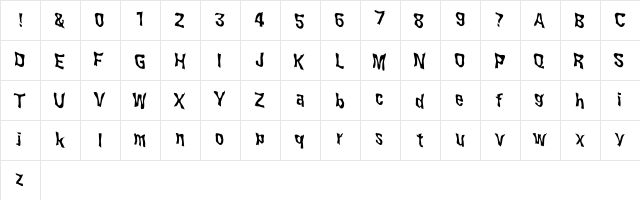
WILD2 Ghixm NC Regular
Design Context for WILD2 Ghixm NC Typeface
WILD2 Ghixm NC is a composed and adaptable typeface that performs quietly and consistently across a wide range of design contexts.
Pro Tip: Use WILD2 Ghixm NC in both headline and body roles to test its range before committing to a single application.